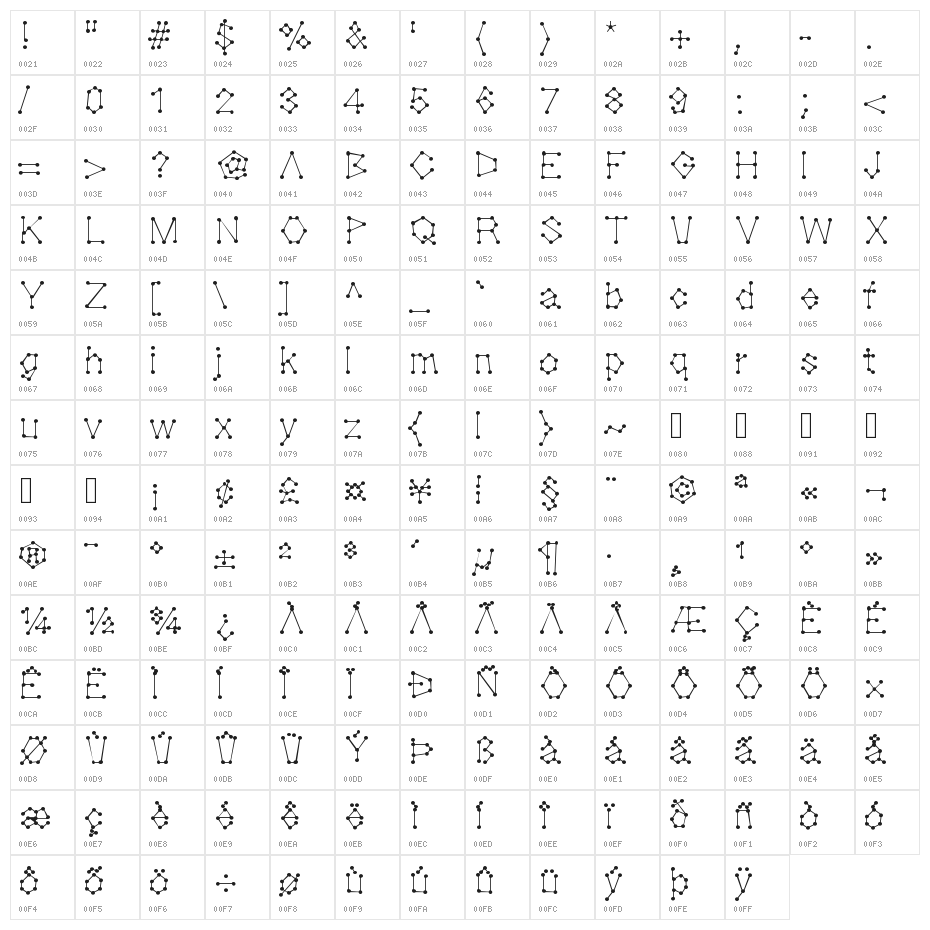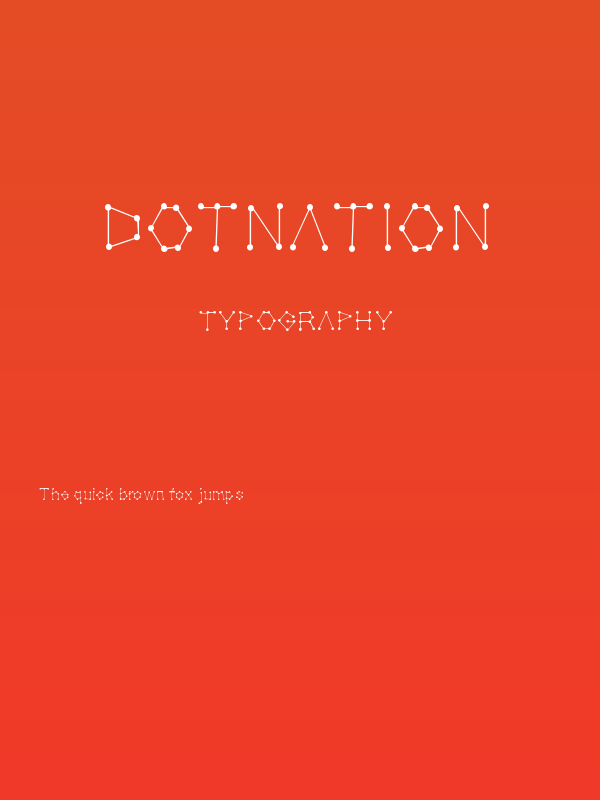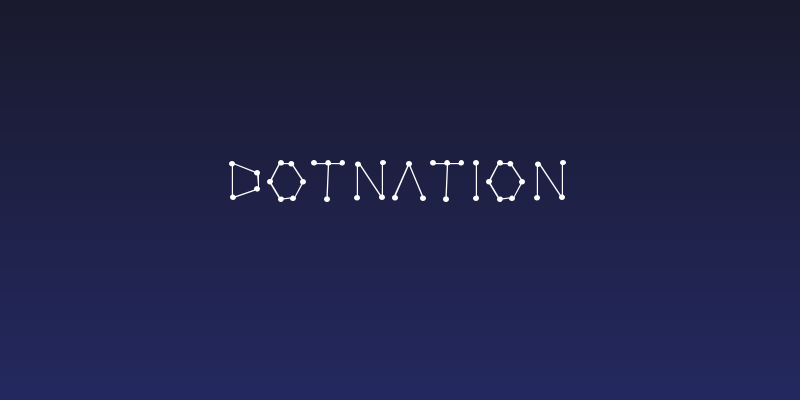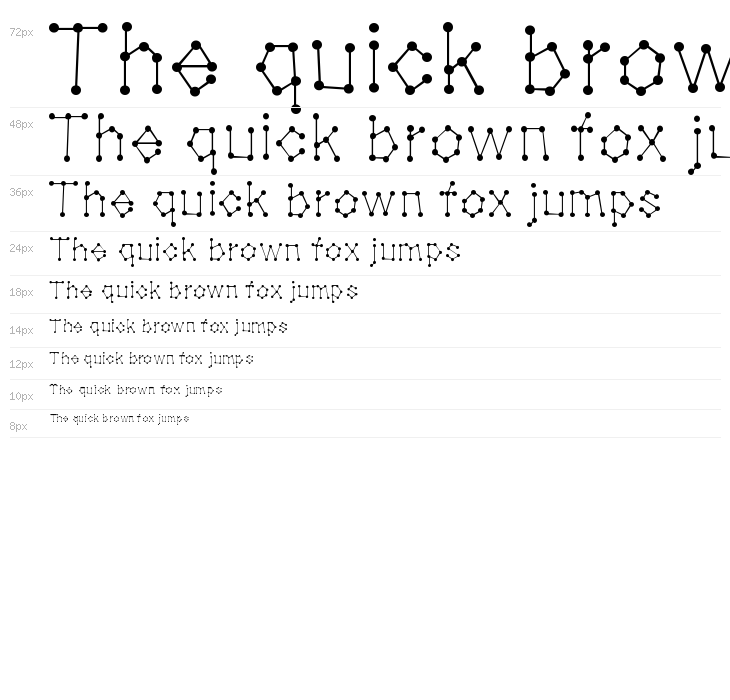
Dotnation Font
Dotnation Description
This font features a unique design where each character is constructed using a series of dots connected by thin lines, resembling a constellation or a network of nodes. The uppercase and lowercase letters, as well as numbers and special characters, maintain this consistent style, creating a cohesive and visually intriguing appearance. The font's playful yet structured design makes it stand out, offering a modern and artistic feel. Its geometric nature and the use of dots give it a distinct, decorative look that is both innovative and eye-catching.
| Use Case | Logos, Posters, Digital Art |
| Proposed Projects | Ideal for creative projects such as posters, logos, and digital art where a unique and modern aesthetic is desired. |